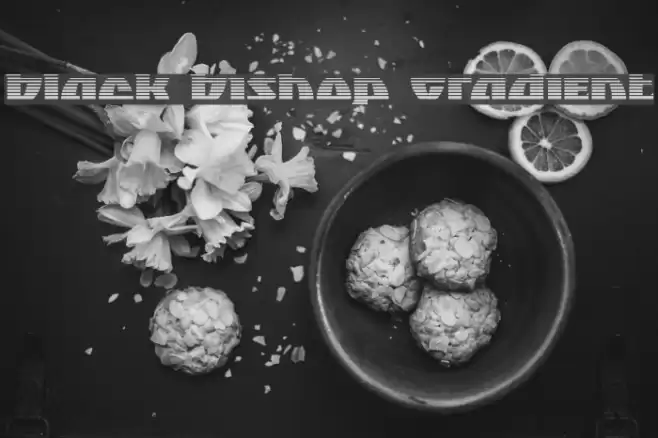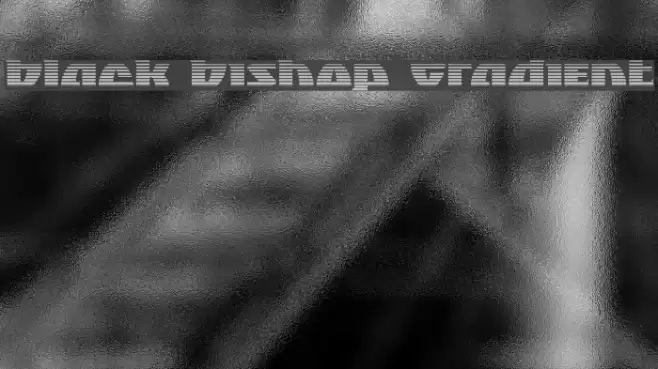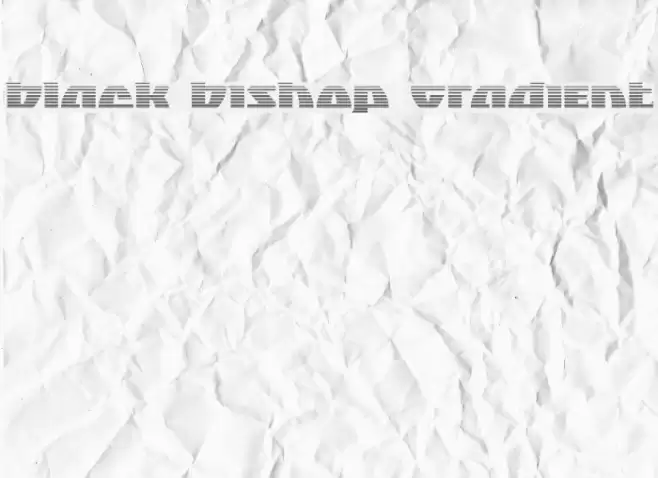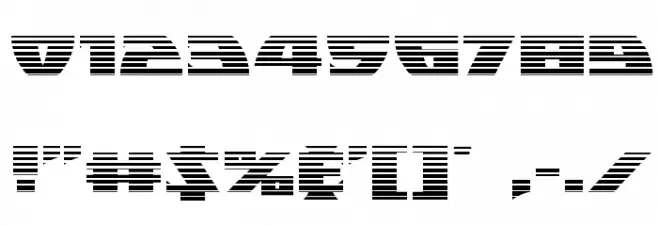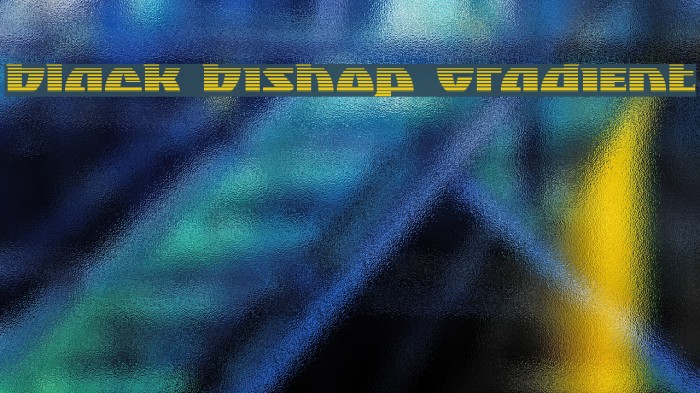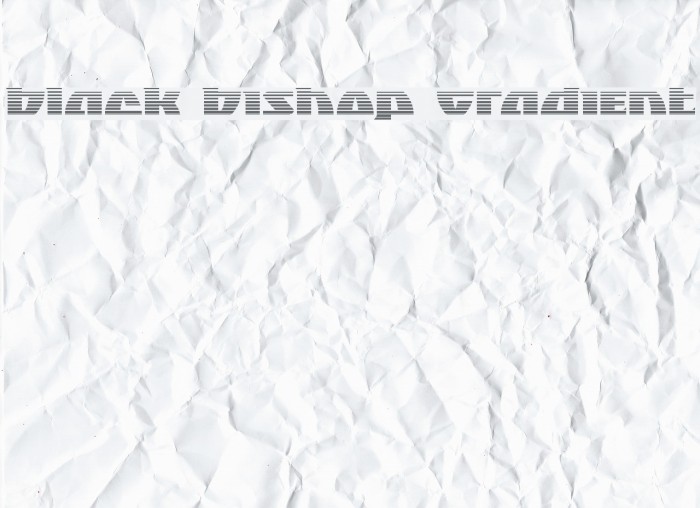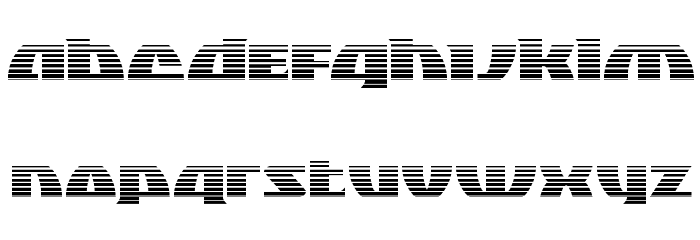
Black Bishop Gradient Font
Black Bishop Gradient Description
This font features a bold, modern design with a unique striped pattern across each character, creating a sense of movement and depth. The geometric shapes are consistent throughout the alphabet, numbers, and special characters, giving it a cohesive look. The uppercase and lowercase letters share a similar style, enhancing readability while maintaining a distinct appearance. The font's design is eye-catching and suitable for projects that require a futuristic or tech-inspired aesthetic.
A bold, modern font with a unique striped pattern and geometric shapes from Uncategorized fonts.
- Proposed Projects: Ideal for tech branding, futuristic posters, video game titles, and digital art projects.